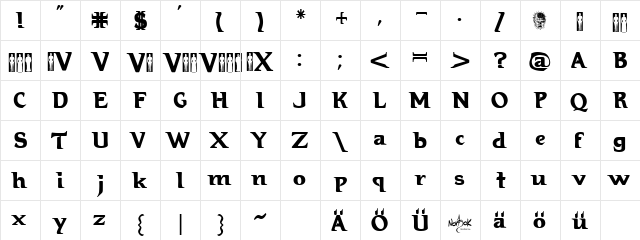
Hellraiser 3 Regular
| Designer | Thomas W.Otto |
Design Context for Hellraiser 3 Typeface
Hellraiser 3 is a composed and adaptable typeface that performs quietly and consistently across a wide range of design contexts.